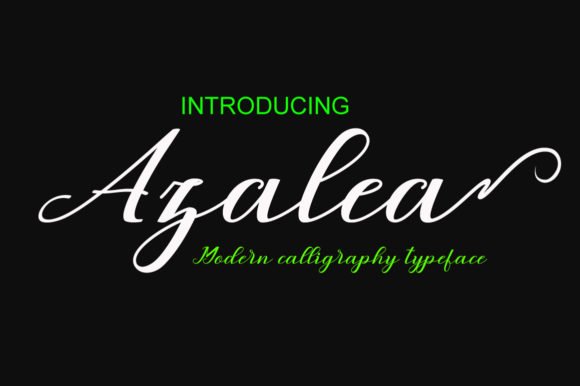
A Touch of Elegance with Azalea Font
Have you ever been working on a design project, and you just can’t seem to find the perfect font to convey the feeling you want to create? I know I have. It’s like searching for a needle in a haystack, until you stumble upon that one font that makes everything fall into place. For me, that font is often Azalea, a beautiful and elegant calligraphy typeface that adds a touch of sophistication to any design.
Azalea Font is a versatile and feminine font that can be used in a variety of designs, from wedding invitations to branding materials. Its delicate strokes and intricate details make it perfect for adding a touch of whimsy and romance to your work. Whether you’re a seasoned designer or just starting out, Azalea Font is a valuable addition to your toolkit, offering endless possibilities for creativity and self-expression.
Azalea Font Key Features
- Font Family: Azalea Font is a modern script font designed to evoke a sense of elegance and sophistication.
- Character Set: Includes a wide range of characters, including uppercase and lowercase letters, numbers, and punctuation marks, making it suitable for various design applications.
- Unique Characteristics: Azalea Font features a unique, flowing script design with subtle flair and elegance, perfect for creating eye-catching headlines and titles.
A Designer’s Take on Azalea Font
I recently had the chance to work with Azalea Font, and I must say, it’s an interesting choice for digital designers. ✨ One of the things I like about this font is its elegant, vintage vibe, reminiscent of classic calligraphy. The subtle flourishes and delicate lines give it a touch of sophistication, making it perfect for high-end branding or luxury packaging.
Another aspect I appreciate is its versatility. ✨ Azalea Font comes in a range of weights and styles, allowing designers to experiment with different looks and feels. This flexibility makes it an excellent choice for projects where you need to convey a sense of professionalism and refinement.
- ⚠️ Limited legibility at smaller font sizes: While Azalea Font looks stunning at larger sizes, it can become difficult to read when scaled down.
- ⚠️ Not suitable for body text: Due to its ornate design, Azalea Font is best used for headings, titles, and other display elements. It may not be the best choice for large blocks of text.
Overall, Azalea Font is a beautiful addition to any designer’s toolkit. While it may have some limitations, its unique charm and versatility make it a great choice for projects where you need to convey a sense of elegance and sophistication.
Tips for Getting the Most Out of Azalea Font
To get the most out of the Azalea font, consider the following tips:
- Use the font in combination with other decorative fonts to add visual interest to your design.
- Experiment with different font sizes and colors to create a cohesive look.
- Use the font in headings and titles to draw attention to important information.
Common Use Cases for Azalea Font
The Azalea font is commonly used in:
Alternatives to Azalea Font for Designers
Great Vibes Font is a modern script font ideal for creating eye-catching headlines and titles. Its elegant and flowing design makes it perfect for wedding invitations, advertising materials, and fashion magazines. Compared to Azalea Font, Great Vibes Font has a more whimsical feel and is better suited for informal and creative projects.